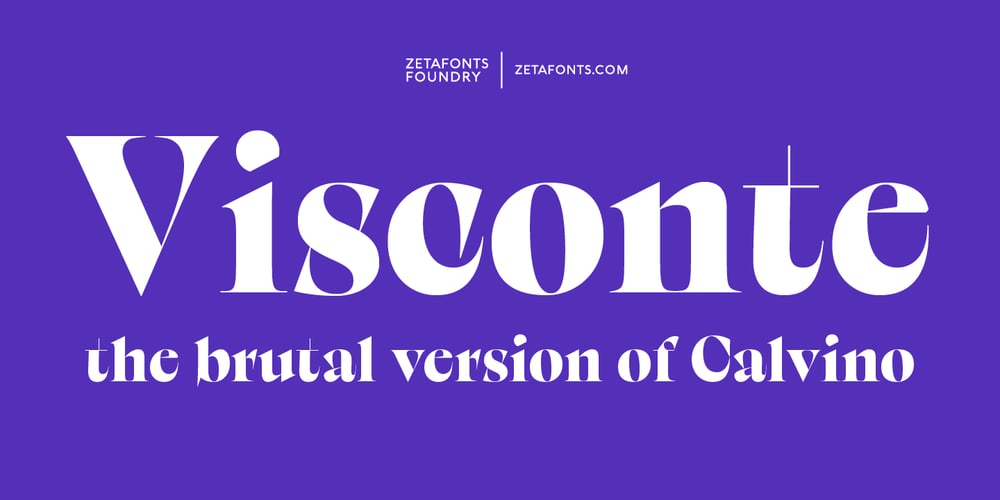
Visconte Font Family was designed by Andrea Tartarelli and published by Zetafonts. Visconte contains 1 styles and family package options. After Marcovaldo, here comes Visconte: a new singularity variant expanding the Calvino typeface family by Andrea Tartarelli with Cosimo Lorenzo Pancini and Francesco Canovaro as a branding font for the Desina Graphic Design Festival in 2023. It takes the design of the original Calvino typeface in the “brutal serif” territory, expanding spiky serifs and creating unexpected distortions and connections while keeping the original calligraphic old style structure of the Calvino Family.